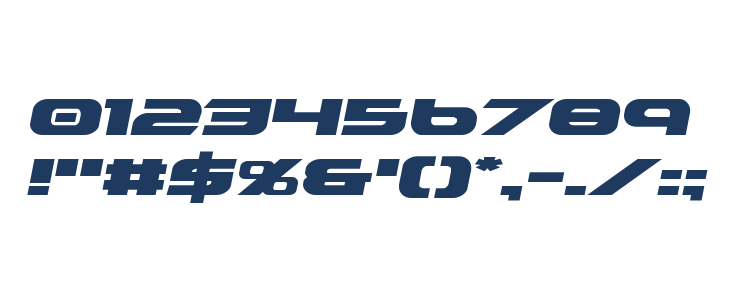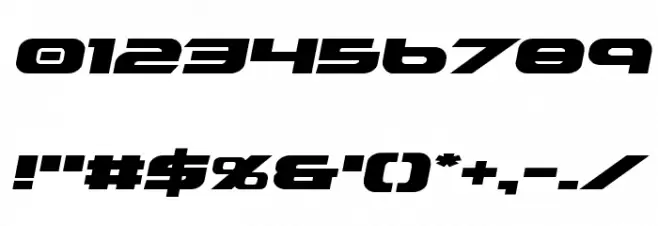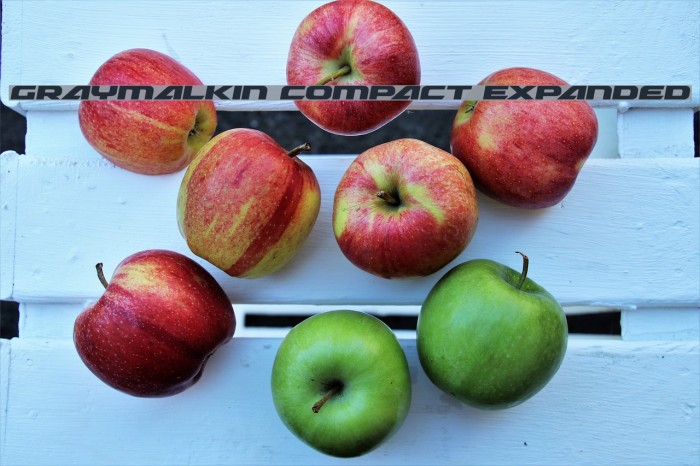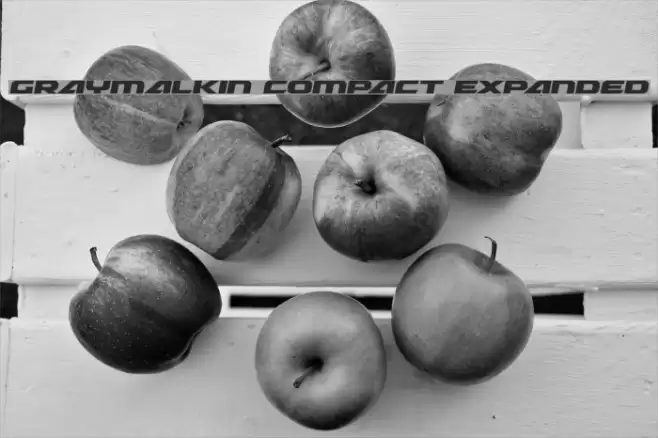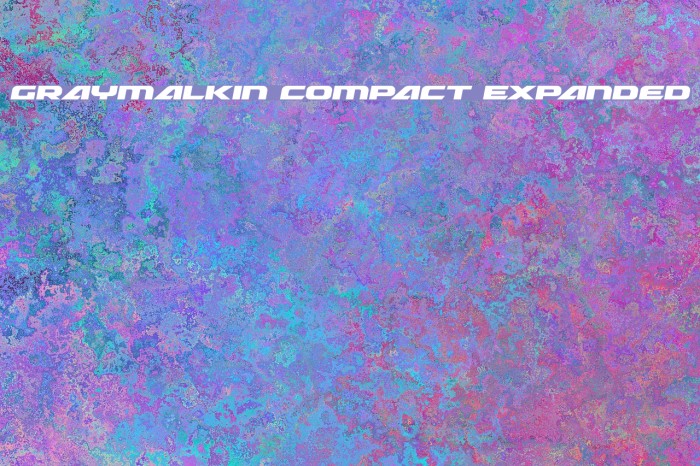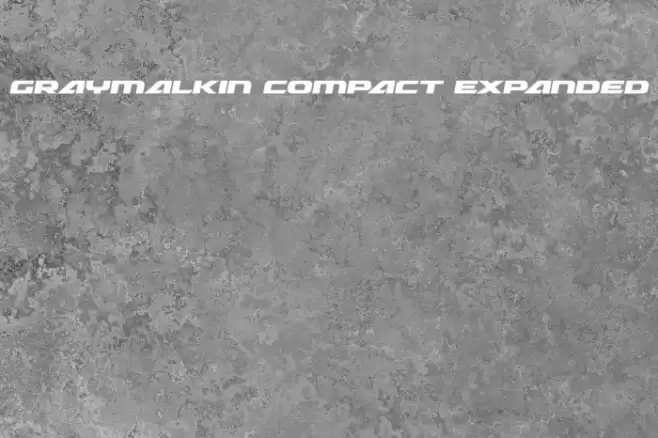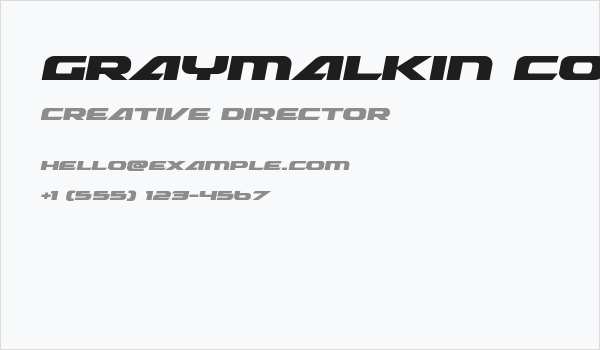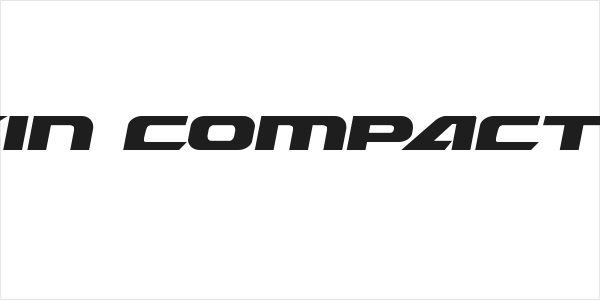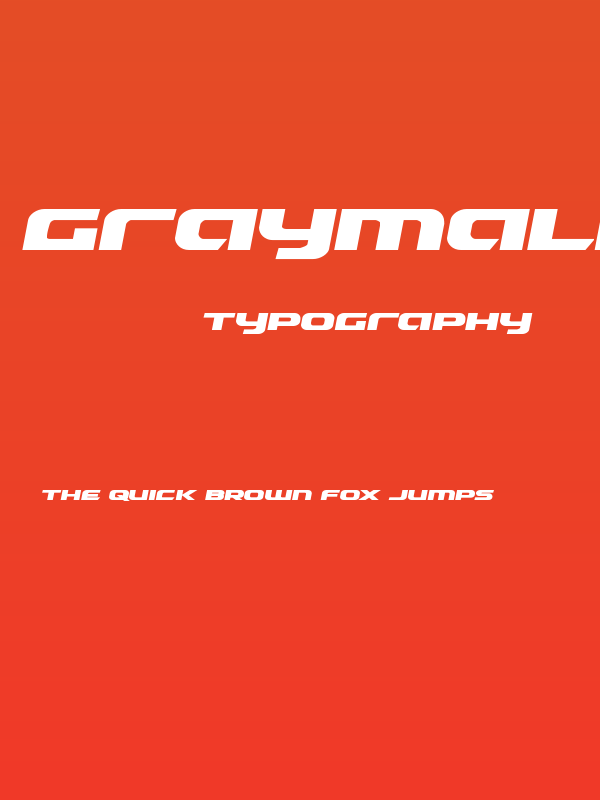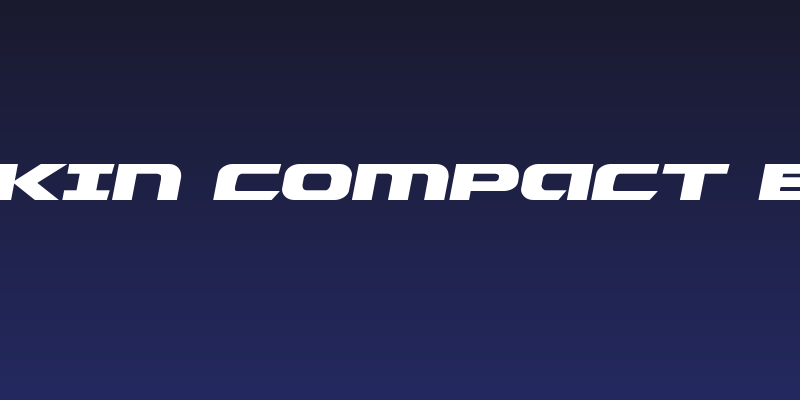
Graymalkin Compact Expanded Font
Graymalkin Compact Expanded Description
This font features a bold, futuristic design with a distinctly angular and geometric style. The characters are wide and expanded, giving a sense of strength and modernity. The uppercase letters are particularly striking, with sharp edges and a consistent stroke width that conveys a sense of precision. The lowercase letters maintain this aesthetic, ensuring readability while still adhering to the overall design theme. The numerals and special characters are equally bold and well-integrated, making this font suitable for a variety of applications where a strong visual impact is desired.
| Proposed Projects | Ideal for technology branding, sci-fi movie posters, video game titles, and modern advertising campaigns. |